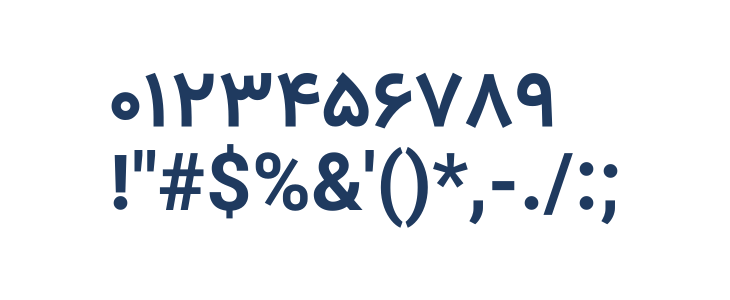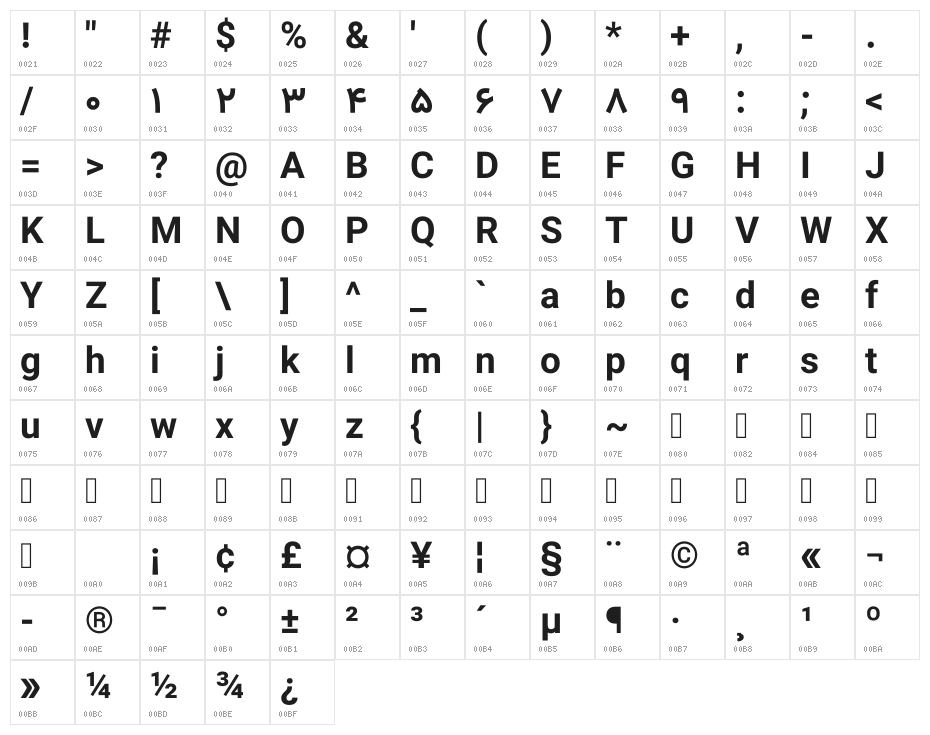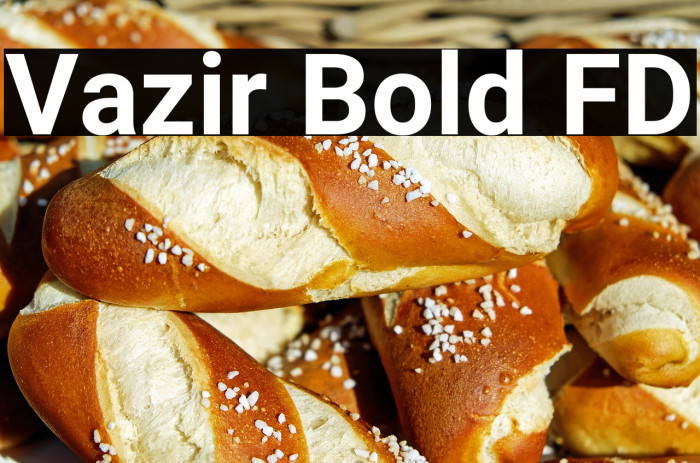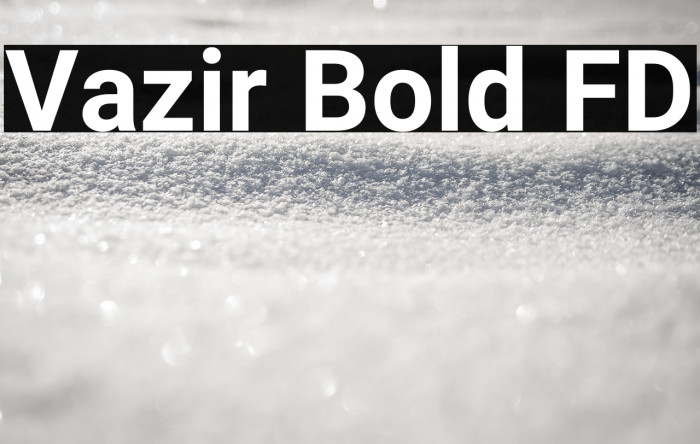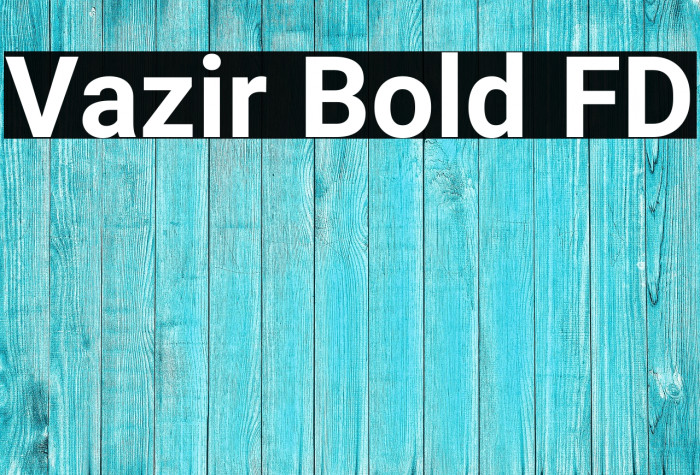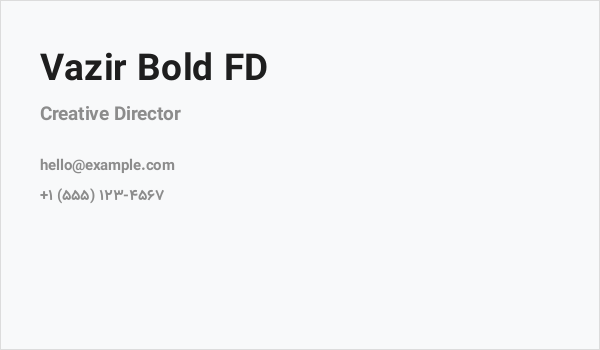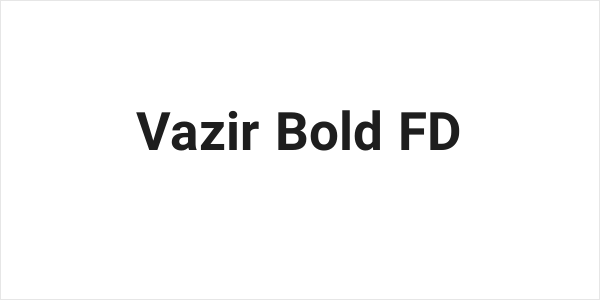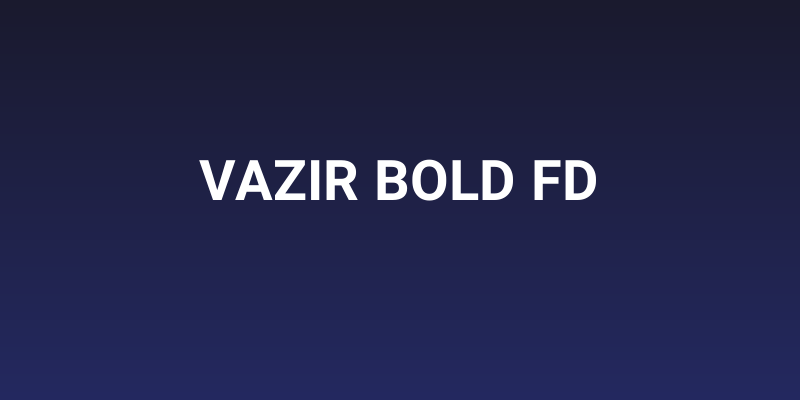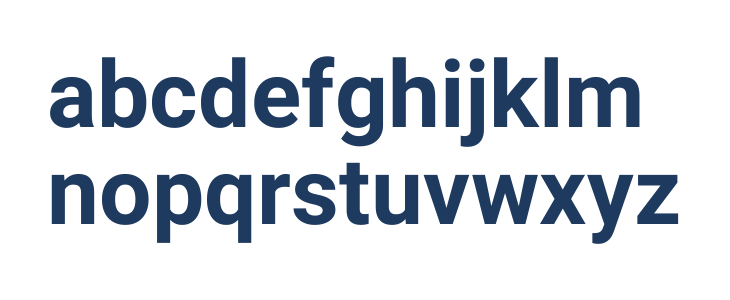
Vazir Bold FD Font
Vazir Bold FD Description
This font features a bold and clean sans-serif design, characterized by its strong, uniform strokes and modern aesthetic. The uppercase and lowercase letters are well-proportioned, offering a sense of balance and readability. The numerals are distinct and easy to distinguish, while the special characters maintain a consistent style with the rest of the typeface. The font's simplicity and clarity make it versatile for various design applications, from digital interfaces to print media.
| Use Case | Headlines, Logos, Digital interfaces |
| Proposed Projects | Ideal for branding, headlines, digital interfaces, and print media where clarity and impact are essential. |